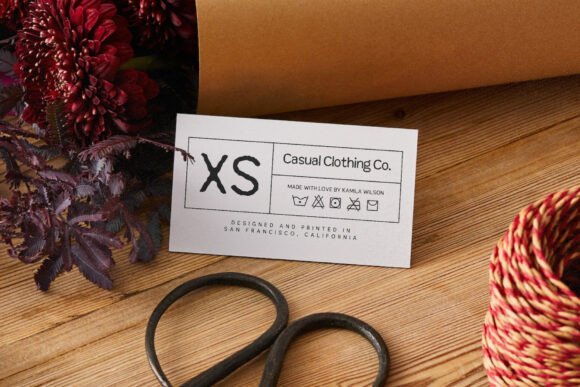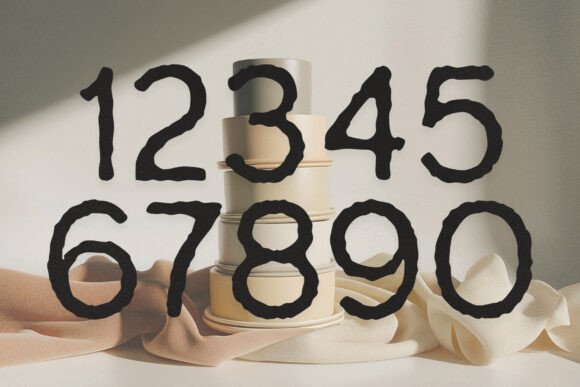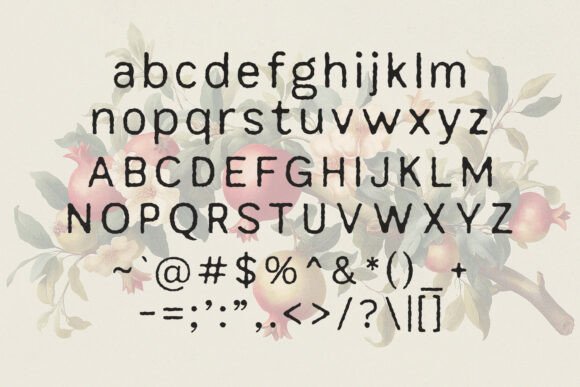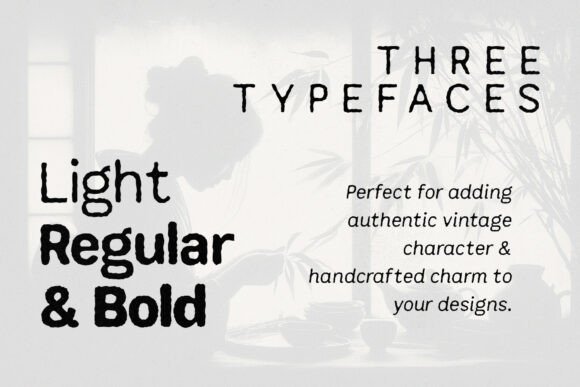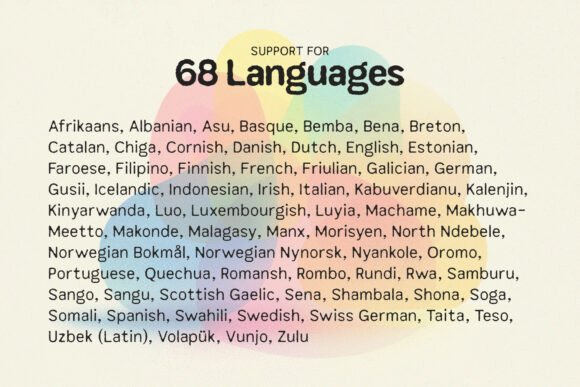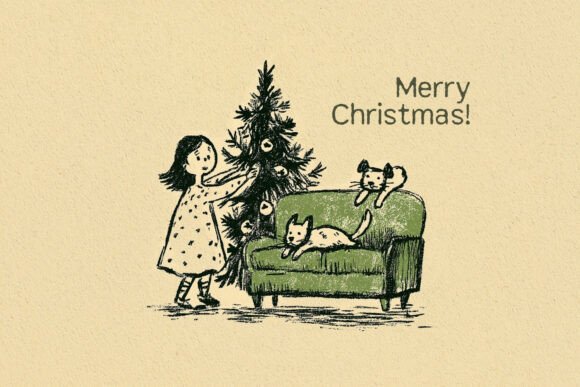
Introducing Archive Foundry: A Timeless Sans Serif Typeface
In the world of typography, finding the perfect balance between modern clarity and rustic character can be a daunting task. However, with Archive Foundry, a versatile sans serif typeface, designers can now achieve a harmonious blend of contemporary sophistication and nostalgic charm. Inspired by vintage archives, historical documents, and timeless editorial design, Archive Foundry delivers a balanced typographic voice that feels both modern and authentically nostalgic.
The Inspiration Behind Archive Foundry
Archive Foundry’s design is rooted in the rich history of typography. The font’s creator drew inspiration from vintage archives and historical documents, which are often characterized by their unique blend of elegance and ruggedness. By studying these classic typographic specimens, the designer aimed to create a font that would evoke a sense of nostalgia while still feeling fresh and modern.
A Font for All Occasions
One of the standout features of Archive Foundry is its versatility. This font shines in both large headlines and smaller text applications, making it an excellent choice for a wide range of design projects. Whether you’re working on a branding campaign, a publishing project, or a design layout that requires understated elegance, Archive Foundry is an excellent option.
Refined Shapes, Sophisticated Editorial Feel
When used with generous letter spacing, Archive Foundry’s refined shapes create a sophisticated editorial feel that works beautifully in high-end branding, publishing, and design layouts. The font’s clean lines, subtle curves, and carefully crafted letterforms come together to create a typographic voice that is both refined and approachable.
Timeless, Versatile, and Highly Practical
The result of Archive Foundry’s thoughtful design is a font that feels timeless, versatile, and highly practical. This dependable addition to any designer’s toolkit can be used in a variety of contexts, from digital applications to print materials. Whether you’re working on a large-scale branding project or a small-scale craft project, Archive Foundry is an excellent choice.
Key Features of Archive Foundry
- Versatile sans serif typeface: Archive Foundry is designed to work well in a variety of contexts, from large headlines to smaller text applications.
- Balanced typographic voice: The font’s design combines modern clarity with rustic character, creating a unique and authentic typographic voice.
- Refined shapes: Archive Foundry’s clean lines, subtle curves, and carefully crafted letterforms create a sophisticated editorial feel.
- Highly practical: The font is designed to be highly practical, making it an excellent choice for a wide range of design projects.
Design Applications for Archive Foundry
Archive Foundry’s versatility makes it an excellent choice for a wide range of design applications, including:
- Branding: Use Archive Foundry to create a sophisticated and elegant brand identity.
- Publishing: The font’s refined shapes and balanced typographic voice make it an excellent choice for books, magazines, and other publications.
- Design layouts: Archive Foundry’s understated elegance makes it an excellent choice for design layouts that require a touch of sophistication.
- Craft projects: The font’s rustic character and nostalgic charm make it an excellent choice for craft projects, such as handmade cards, invitations, and other paper crafts.
In conclusion, Archive Foundry is a versatile sans serif typeface that offers a unique blend of modern clarity and rustic character. With its refined shapes, balanced typographic voice, and highly practical design, this font is an excellent choice for designers and crafters looking for a dependable addition to their toolkit. Whether you’re working on a large-scale branding project or a small-scale craft project, Archive Foundry is sure to deliver.